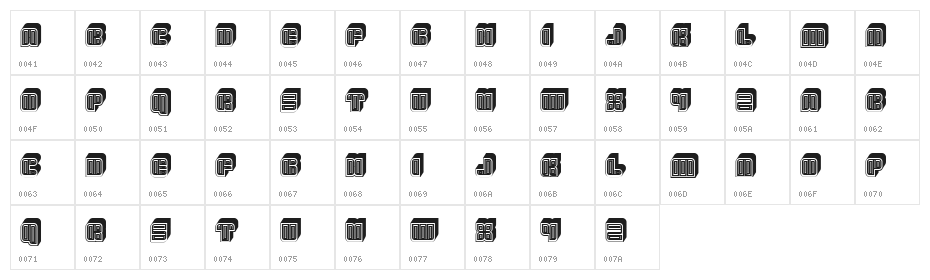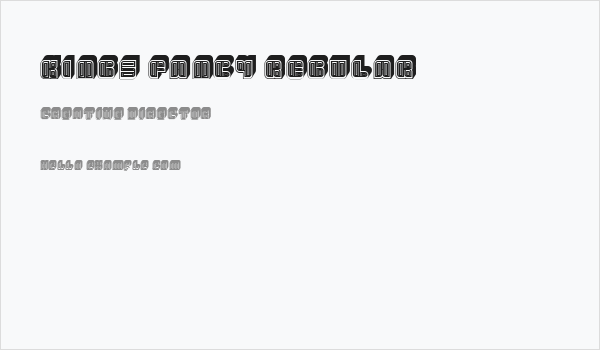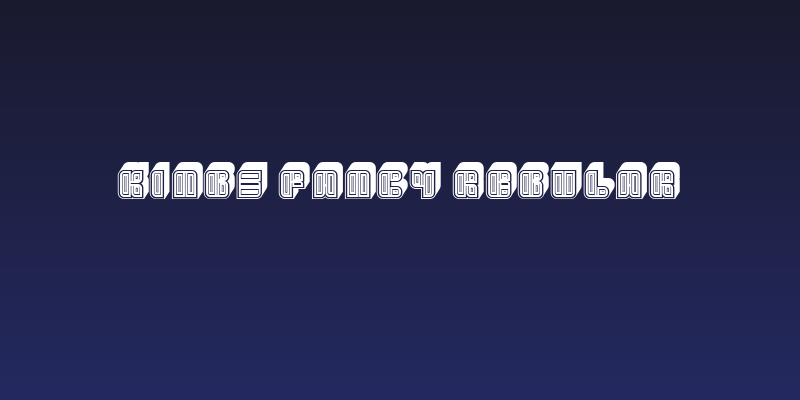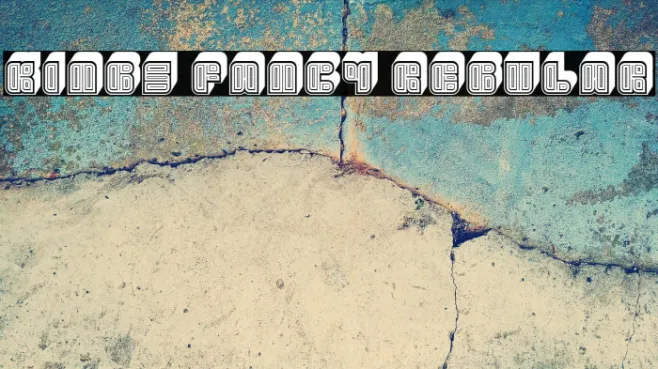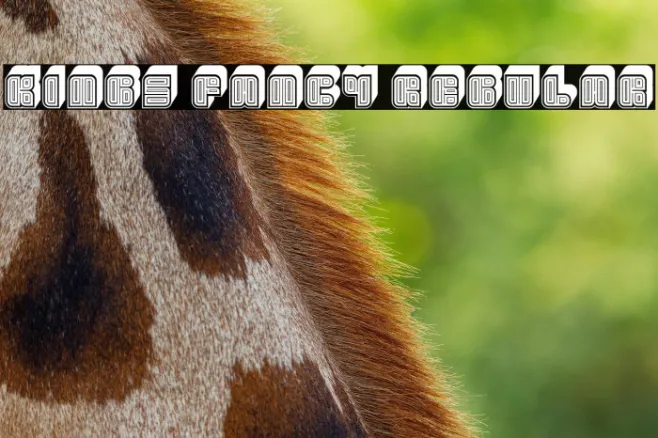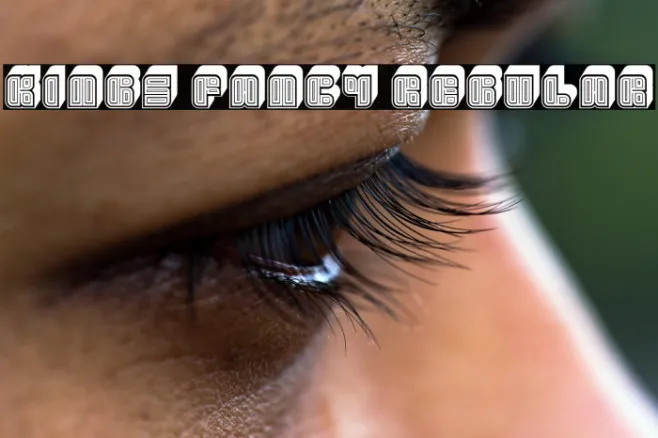
Kings Fancy Regular Font
Kings Fancy Regular Description
This font features a bold, decorative style with a unique layered effect that creates a sense of depth and dimension. Each character is enclosed within a thick outline, giving it a strong presence. The inner lines of the letters are intricately designed, adding a complex and artistic flair. The font maintains a consistent width across all characters, contributing to a uniform appearance. Its geometric shapes and structured form make it stand out, perfect for projects that require a striking visual impact. The font's design is both modern and playful, making it suitable for creative and eye-catching applications.
| Proposed Projects | Ideal for posters, logos, headlines, and any design needing a bold statement. |